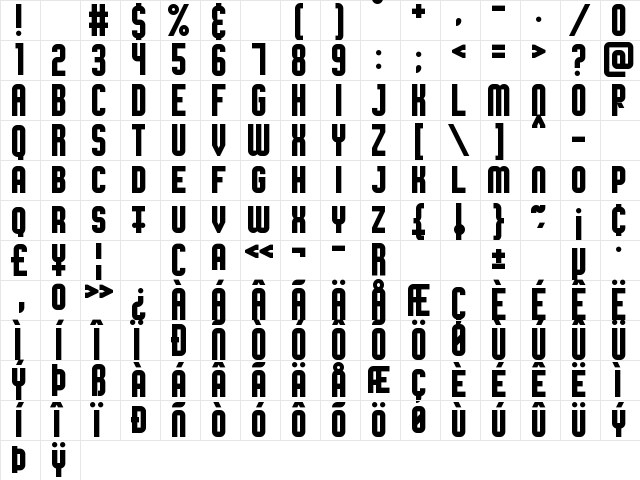
Broadsheet Bubble Regular Free Font
Broadsheet Bubble Regular
Designer: GameDevDan
Design Context for Broadsheet Bubble
Broadsheet Bubble has an approachable, lighthearted character - its loose, expressive forms are well-suited to children's content, casual branding, and fun-first design.
Font Pairing: Pairs well with a rounded or humanist sans for body copy, maintaining the friendly tone without relying on Broadsheet Bubble to carry extended reading.
Pro Tip: Use Broadsheet Bubble at larger display sizes where its expressive character can land. Pair with a clean, simple sans for body copy to maintain readability.